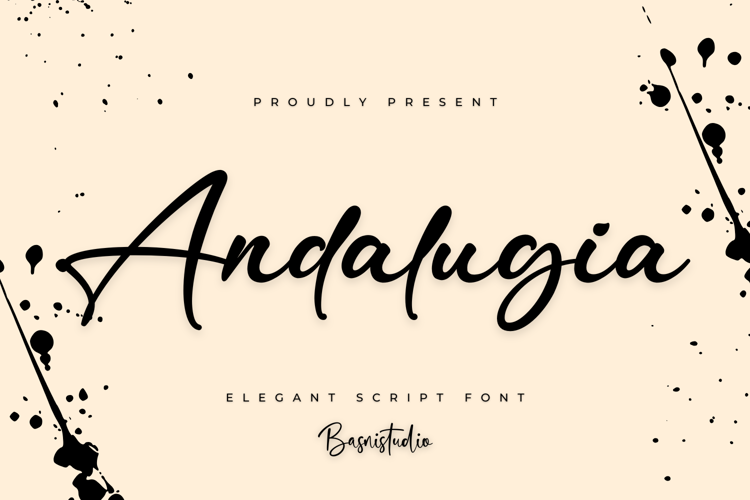
Andalugia Font
INTRODUCING Andalugia Elegant Script Font
Andalugia Elegant Script Font that adds a elegant, versatile touch to everything from branding and social media to invitations and packaging.